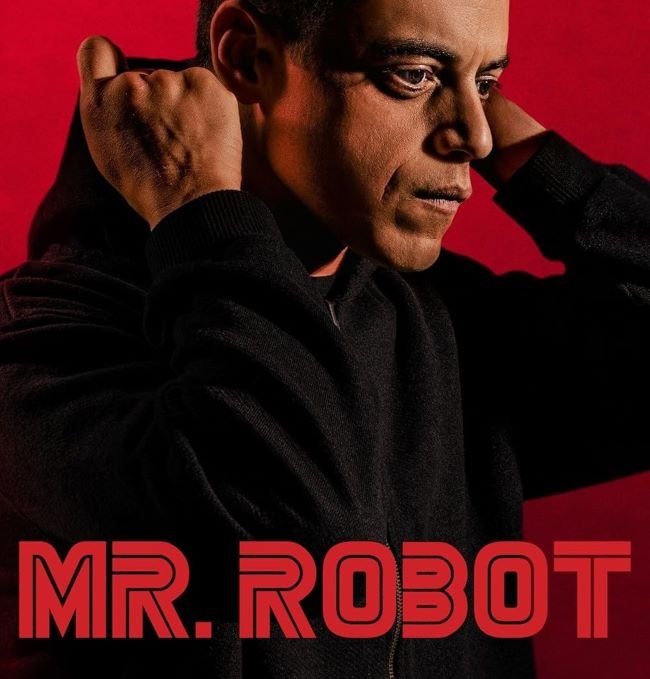
Mr. Robot font — similar to the Sega display font — lands on Sam Esmail’s USA Network 2015 psychological thriller with the visual authority of a corporate system that has been reprogrammed by someone who knows exactly what they are doing: a bold, geometric sans-serif in aggressive red, its clean structure and heavy weight suggesting the kind of systemic clarity that Elliot Alderson brings to hacking, corporate architecture, and his own fragmented sense of identity.
The deliberate blocky, high-contrast presentation gives the title a rawness that the underlying typeface’s clean geometry would not achieve on its own, creating exactly the tension between order and disruption that defines the show’s central concern — what happens when someone with complete technical mastery decides to use it against the system that created them.